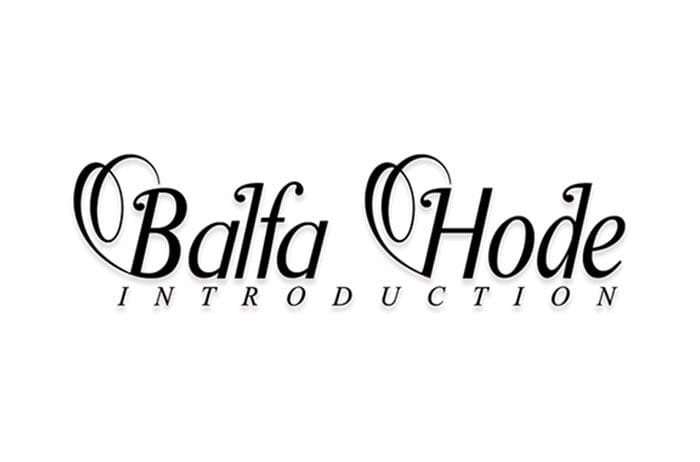
Balfa Hode Serif Font
Balfa Hode is an original and cute serif font. It features gorgeous swashes that make it perfect for wedding invitation, branding and much more! Use Balfa Hode to add a romantic touch to your projects! Designed this font by Andika Studio. You can also search more freeĀ Serif Fonts.